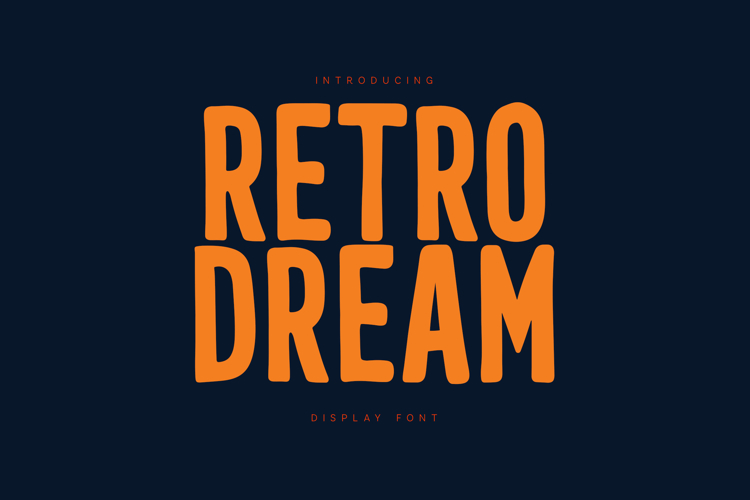
Retro Dream Vintage Display Font
Retro Dream is a bold vintage display font inspired by retro posters, hand-painted signage, mid-century advertising, and nostalgic packaging design. Featuring slightly irregular shapes and organic letterforms, it delivers a warm handcrafted character while maintaining strong readability and visual impact.
Perfect for logos, branding, packaging, posters, labels, merchandise, social media graphics, food brands, café identities, editorial headlines, and marketing projects, Retro Dream brings an authentic retro personality to any design.
The font includes uppercase and lowercase characters, numerals, punctuation, multilingual language support, and carefully crafted details that create a playful yet professional appearance. Whether you're designing for a vintage-inspired brand or creating bold eye-catching headlines, Retro Dream helps your work stand out with timeless charm.
From retro branding and restaurant menus to packaging, posters, and advertising campaigns, Retro Dream combines nostalgic appeal with modern usability for designers seeking a distinctive vintage aesthetic.